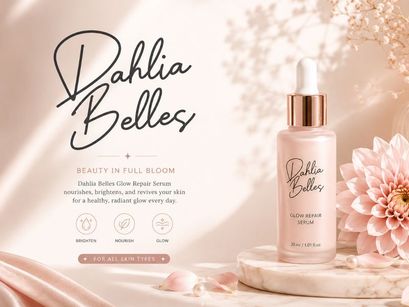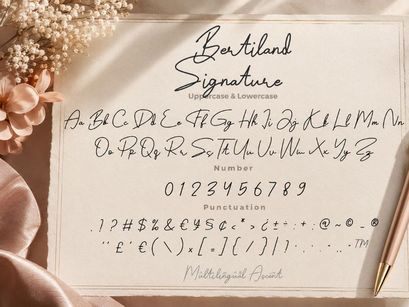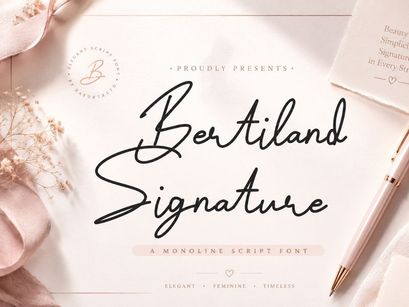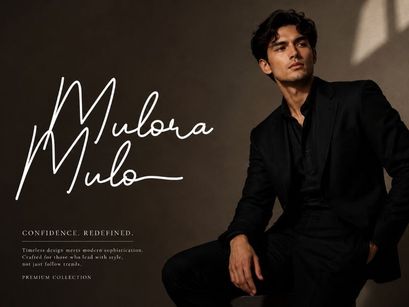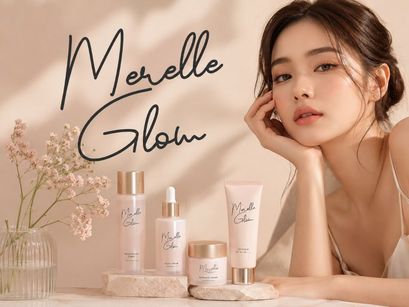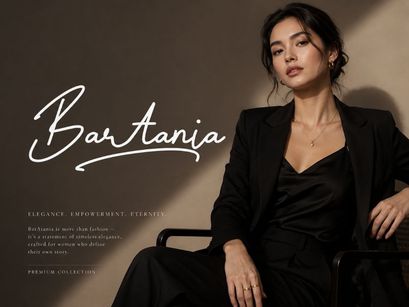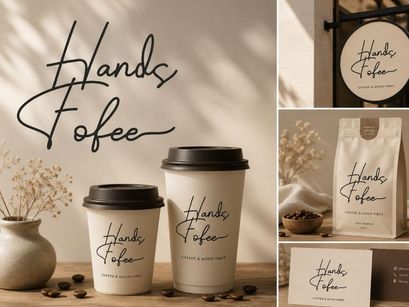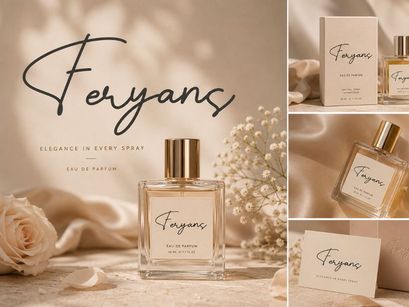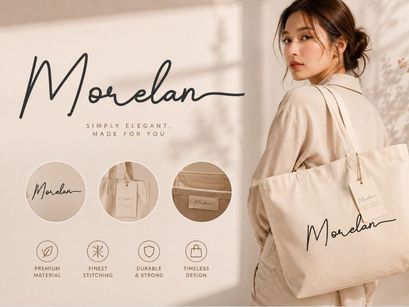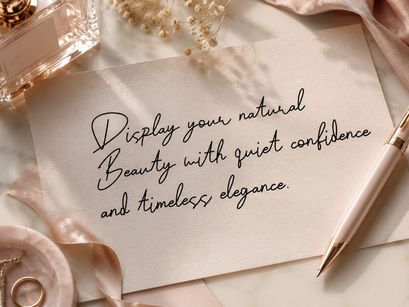
Bertiland Signature – Monoline Script Font
Bertiland Signature is an elegant Monoline Script Font that beautifully combines fluid handwritten strokes with refined minimalism, creating a sophisticated signature style that feels both modern and timeless. Inspired by graceful pen movements and contemporary calligraphy, this typeface features smooth flowing lines, balanced proportions, and naturally connected letterforms that express confidence, beauty, and authenticity.
Designed with meticulous attention to detail, Bertiland Signature offers seamless character connections and exceptional readability while preserving the elegance of genuine handwriting. Its clean monoline construction produces a luxurious yet understated appearance, making it an excellent choice for creative projects that demand premium quality and effortless sophistication.
Blending feminine charm with professional refinement, Bertiland Signature delivers a graceful visual rhythm suitable for luxury branding, fashion identities, wedding stationery, editorial layouts, and stylish packaging. Every letter flows naturally, adding a distinctive handwritten personality that enhances both digital and print designs with timeless elegance.
With Bertiland Signature – Monoline Script Font, every design reflects effortless elegance through clean monoline strokes and naturally flowing handwriting. Its refined signature style brings a luxurious and contemporary touch, making it the perfect choice for premium branding, elegant invitations, sophisticated packaging, and modern creative projects.